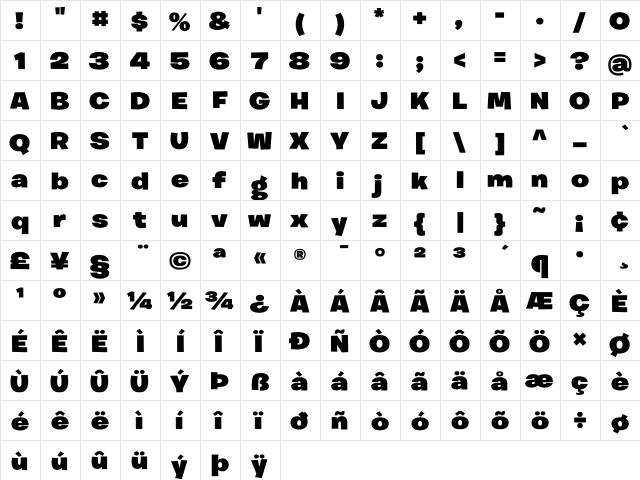
Burbank Big Wide Black Font Preview
Burbank Big Wide Black
Burbank Big Wide Black Font Details
| Foundry | House Industries |
| Designer | Tal Leming |
Design Context for Burbank Big Wide Typeface
Burbank Big Wide takes a measured approach to typography — its balanced proportions and neutral character make it a reliable workhorse for both digital and print work.